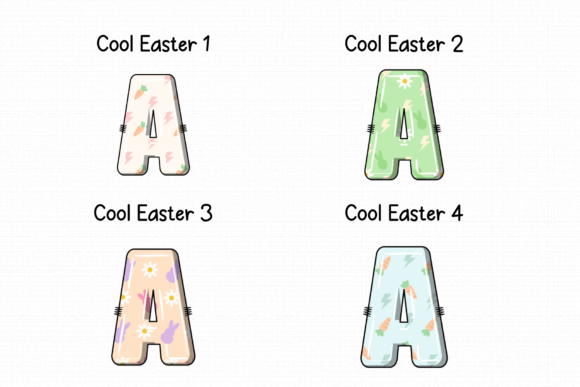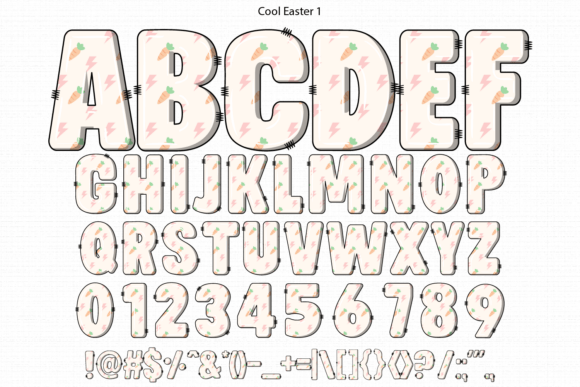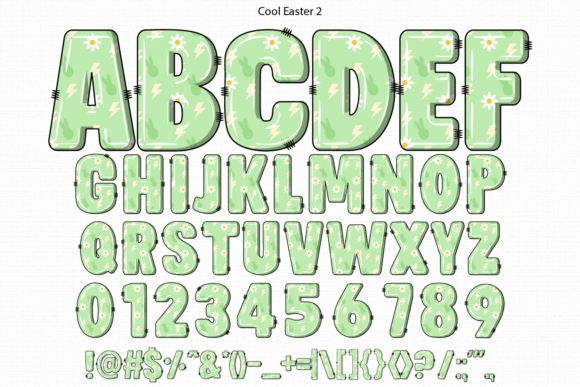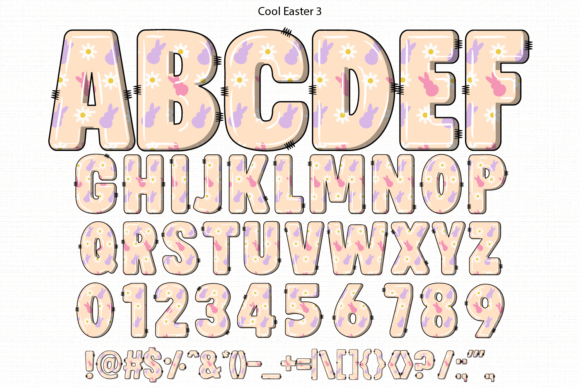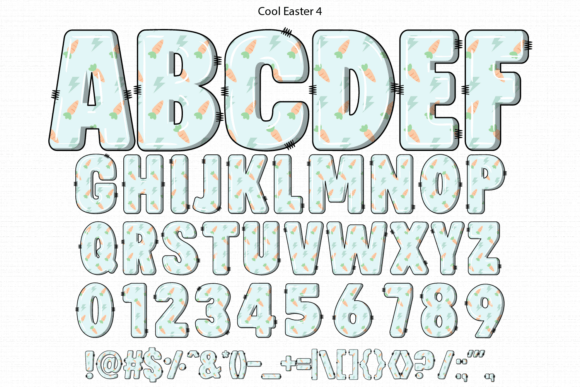
Introduction to Cool Easter Font
Cool Easter is an Easter day color font.
It embodies playfulness and authenticity and is the perfect choice for all your favorite projects, or even for blog posts, logos, branding, ads, invitations, greeting cards, planners, photo albums, decorations, and much more Add it to any of your designs, and enjoy the results.